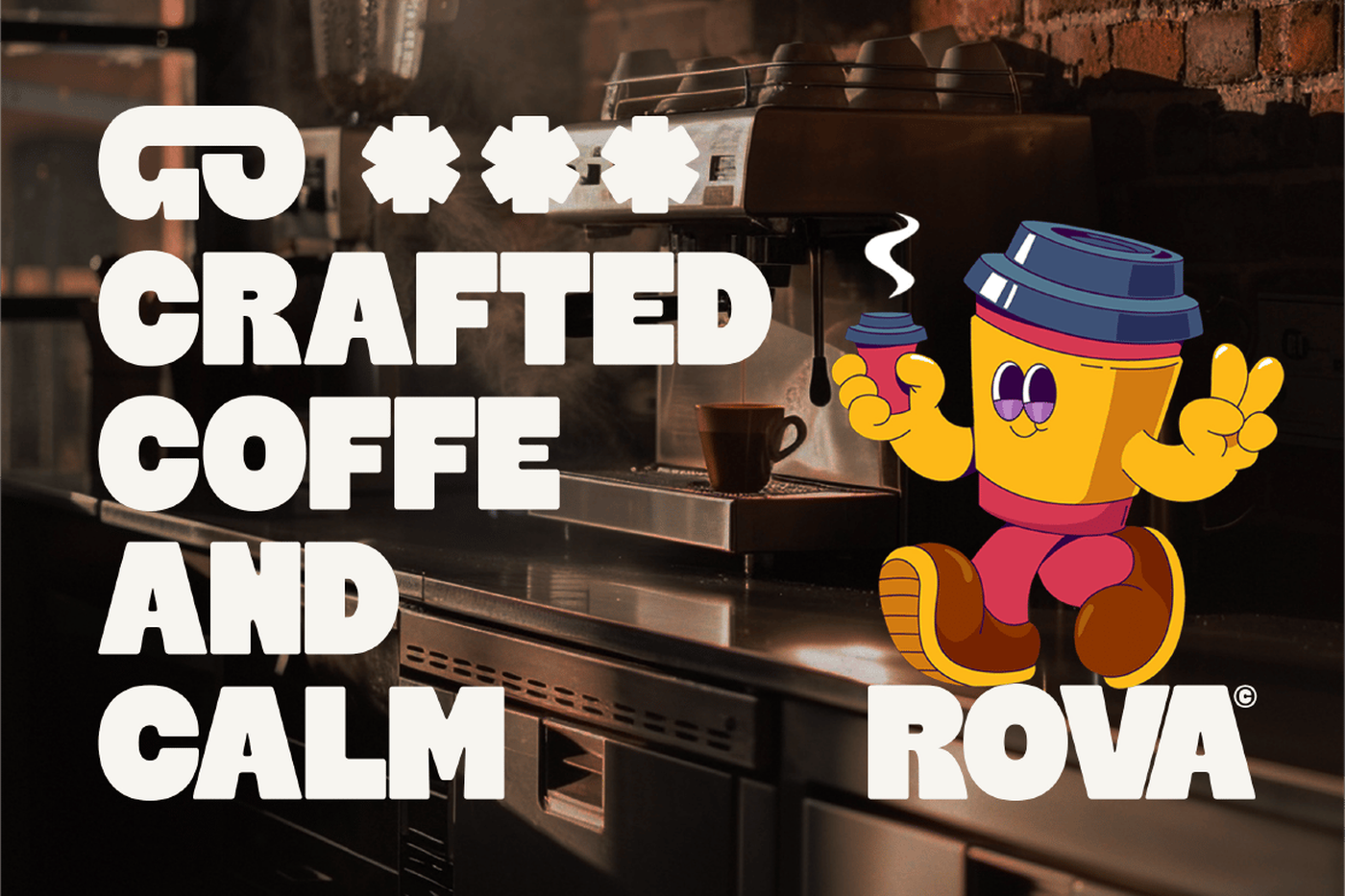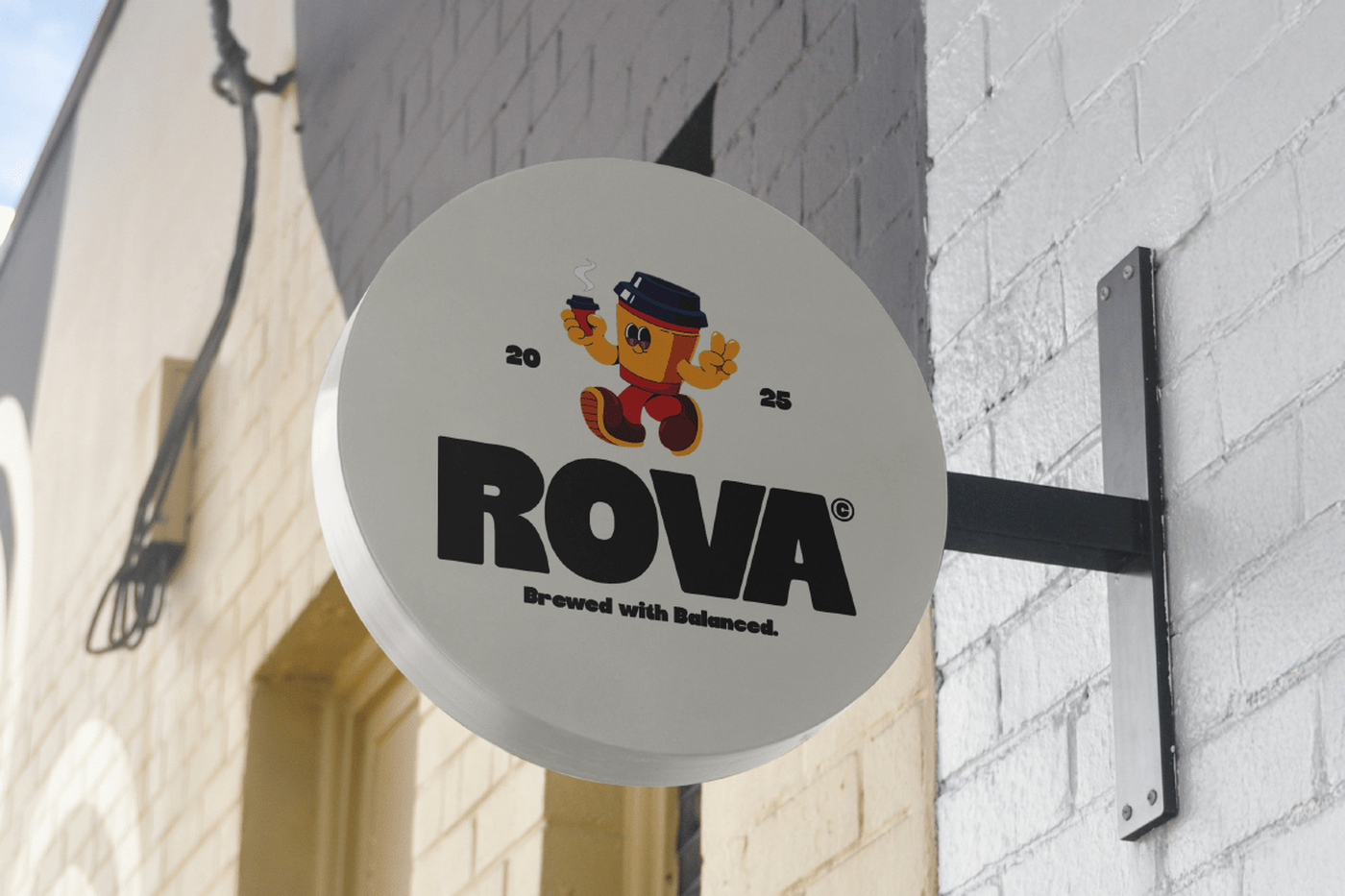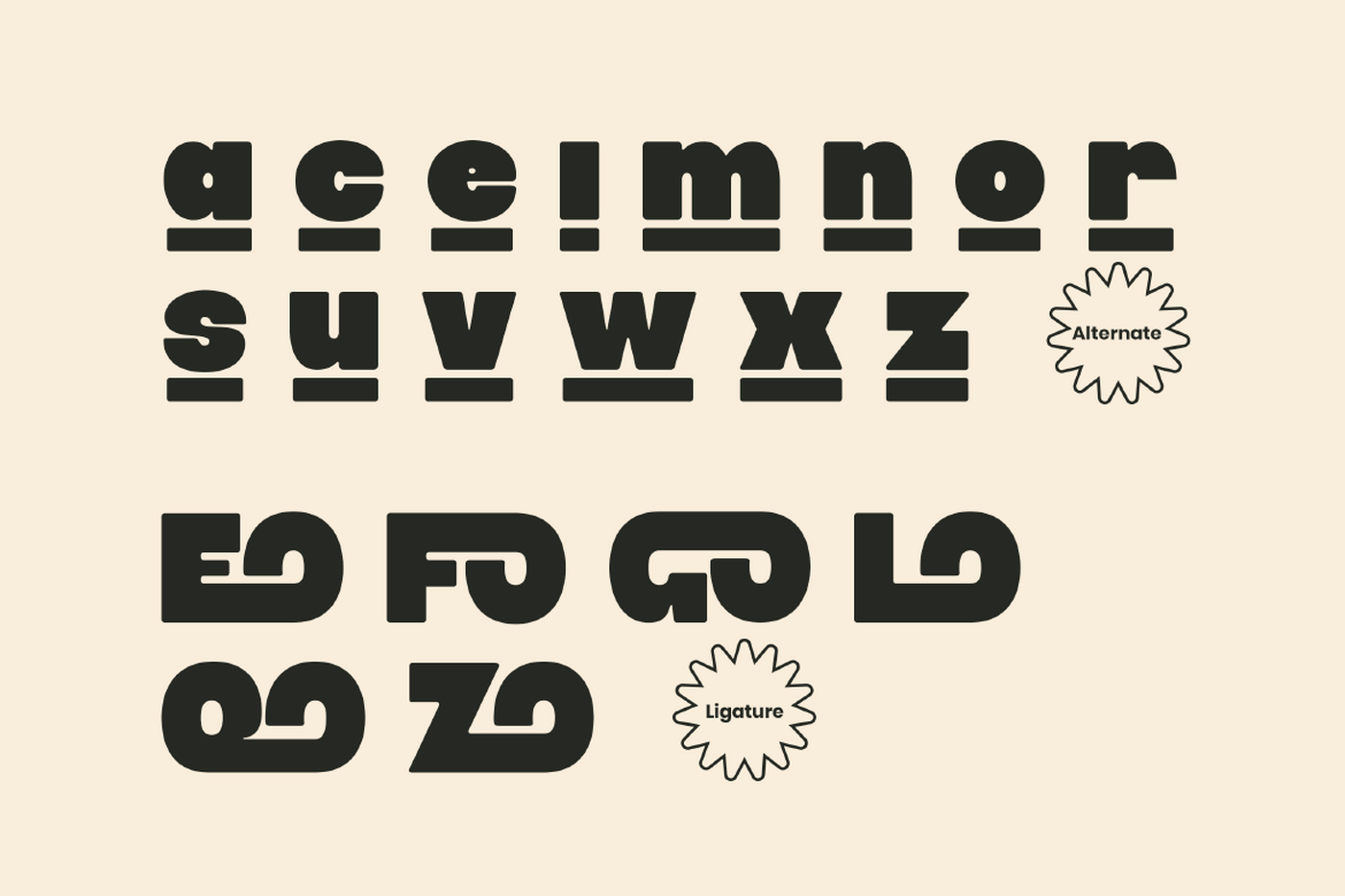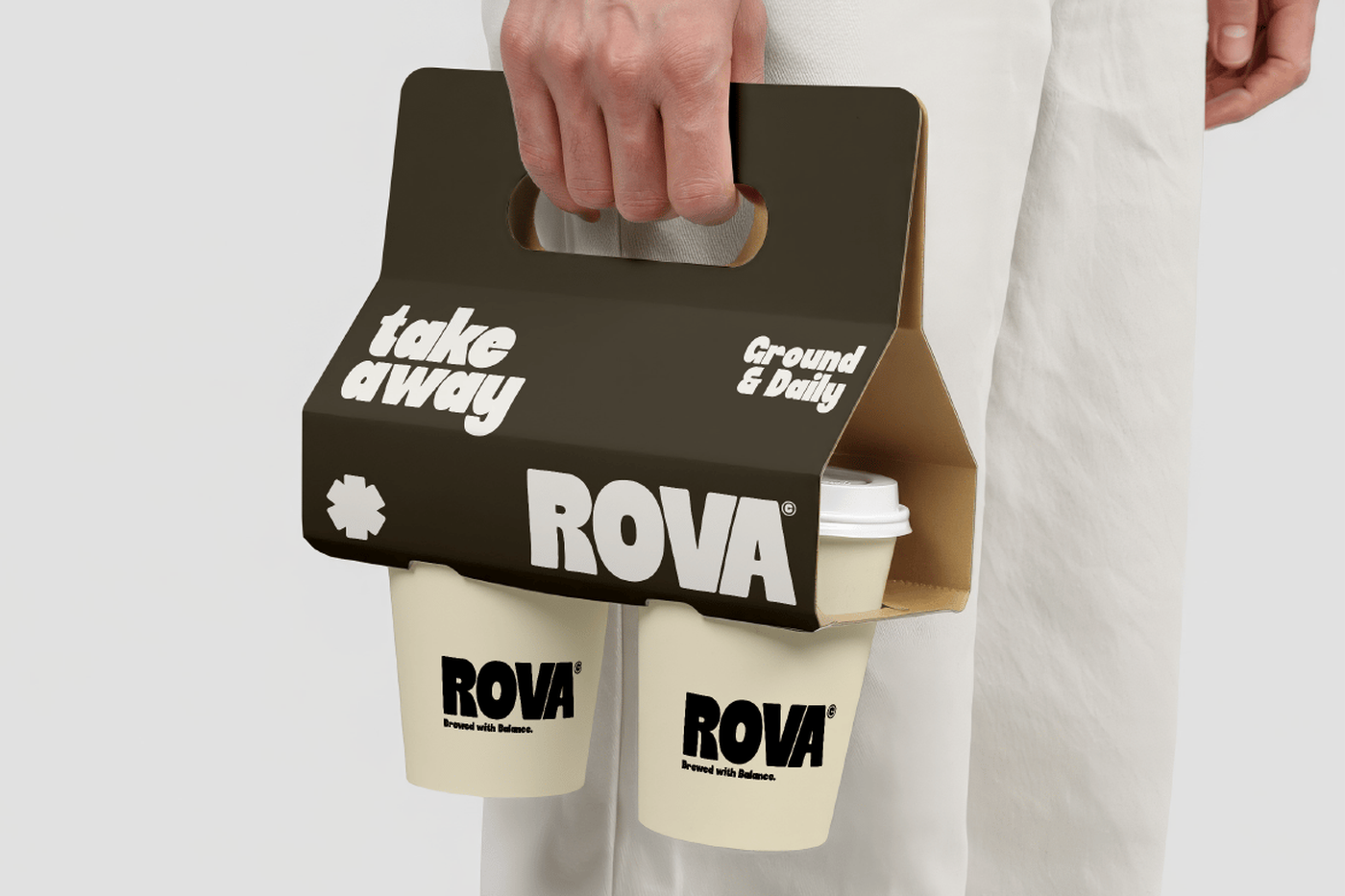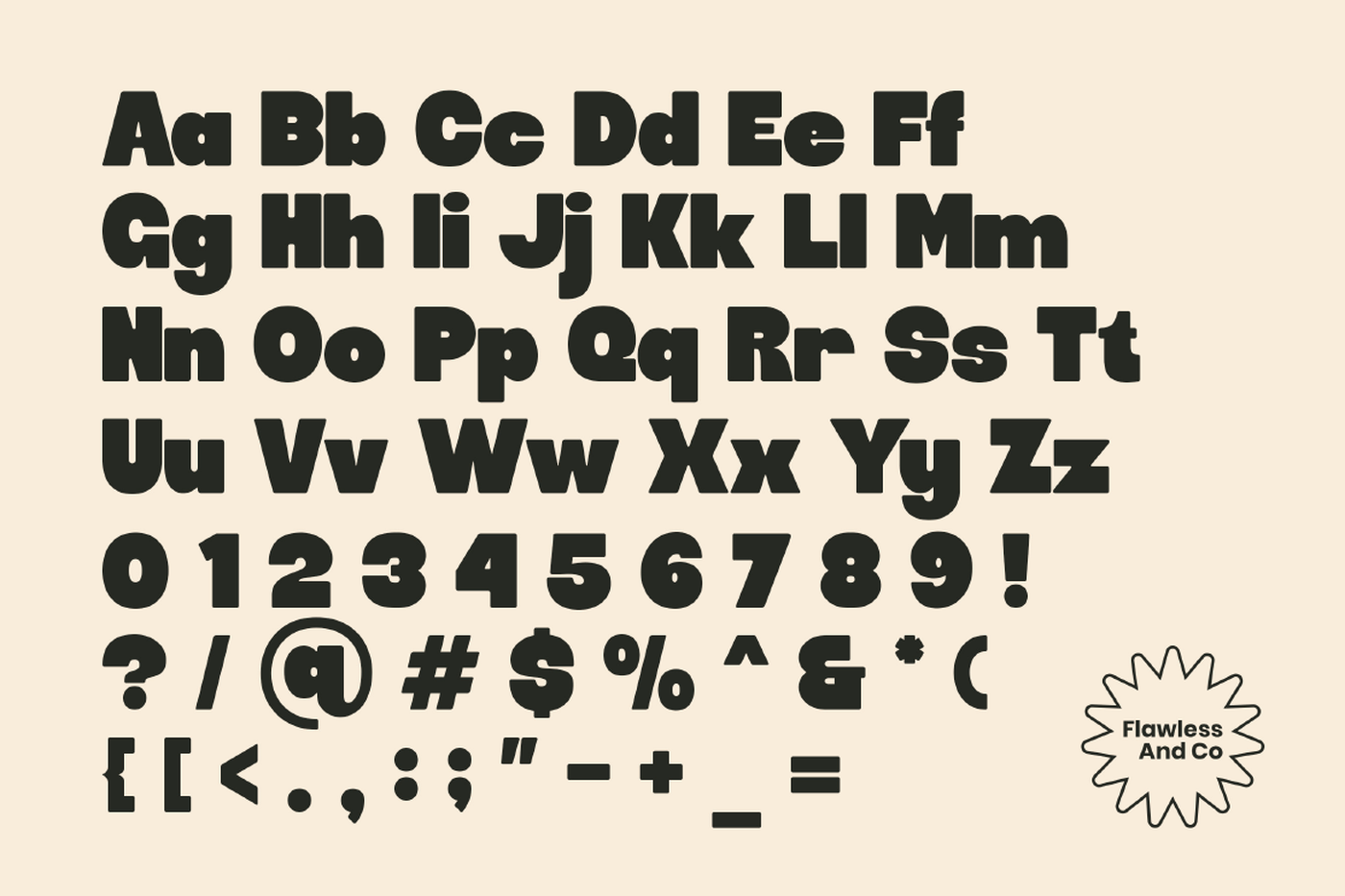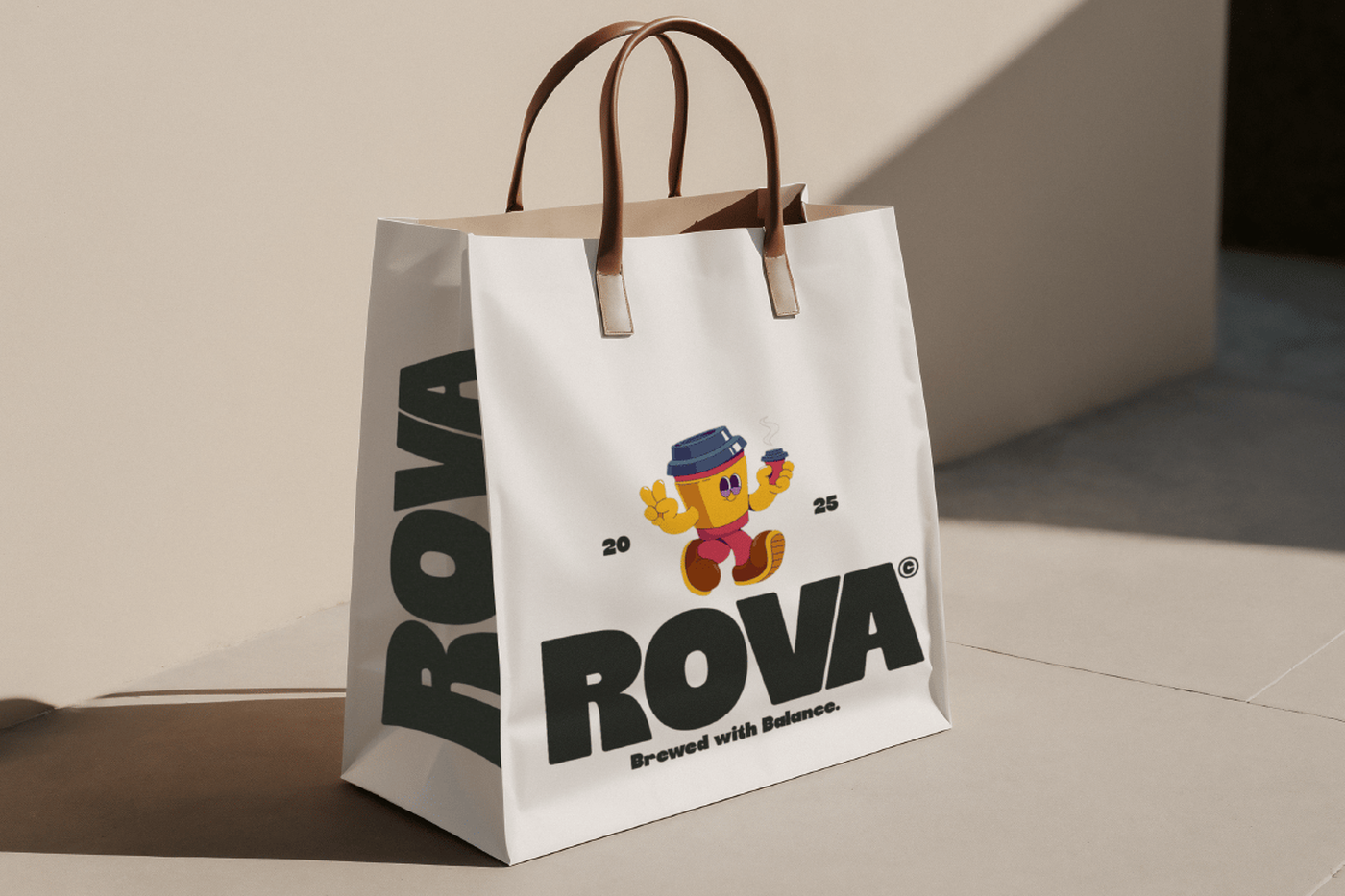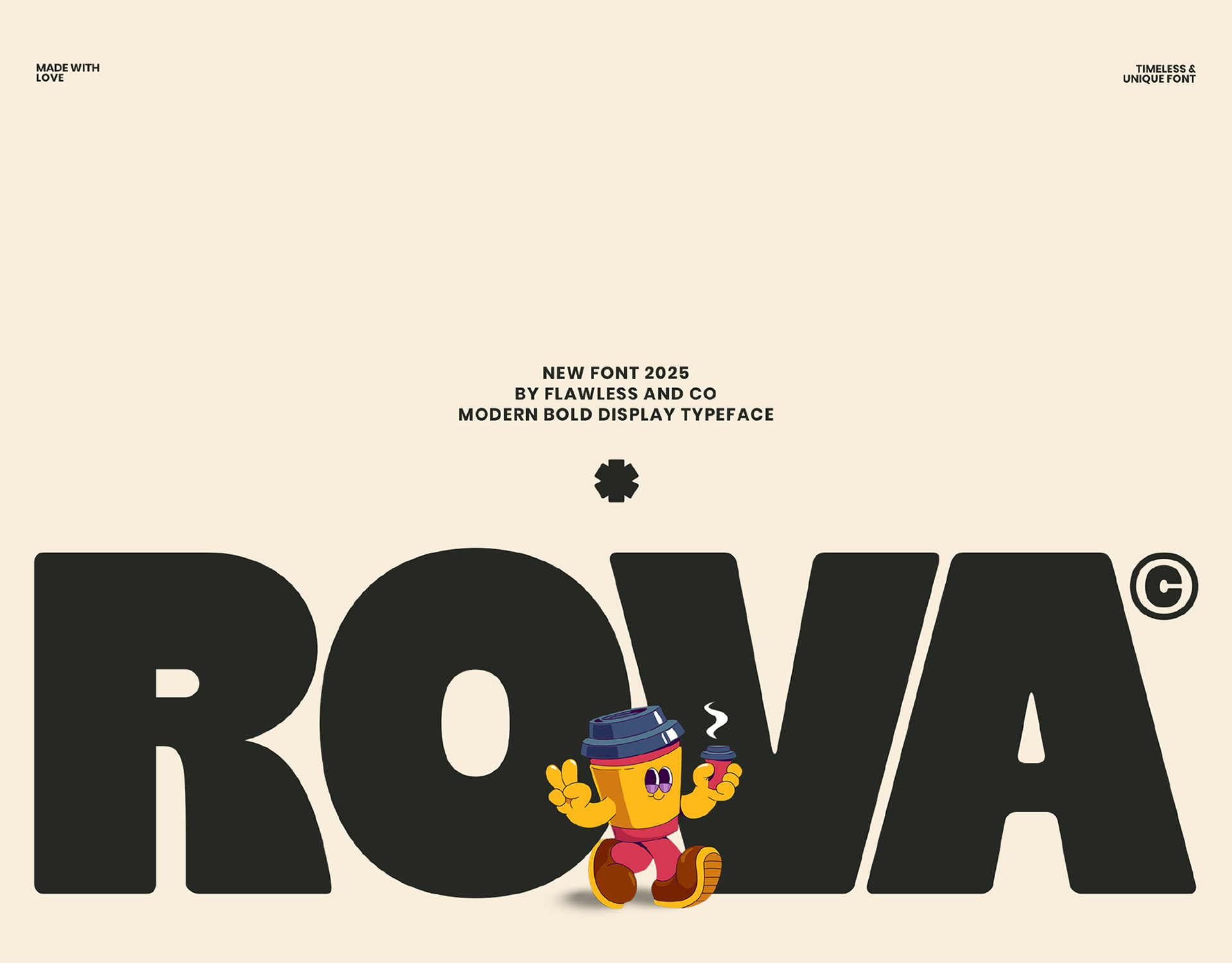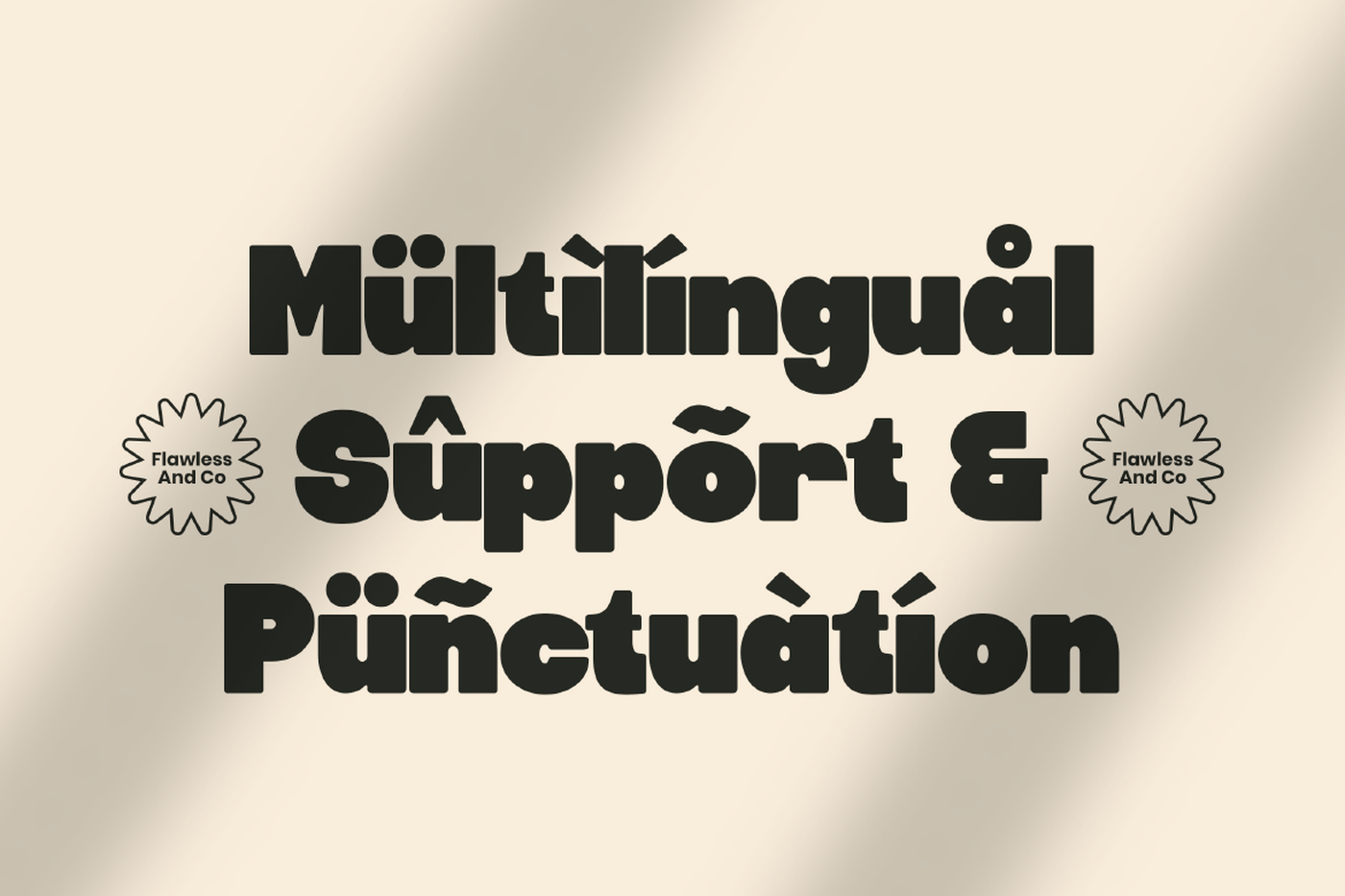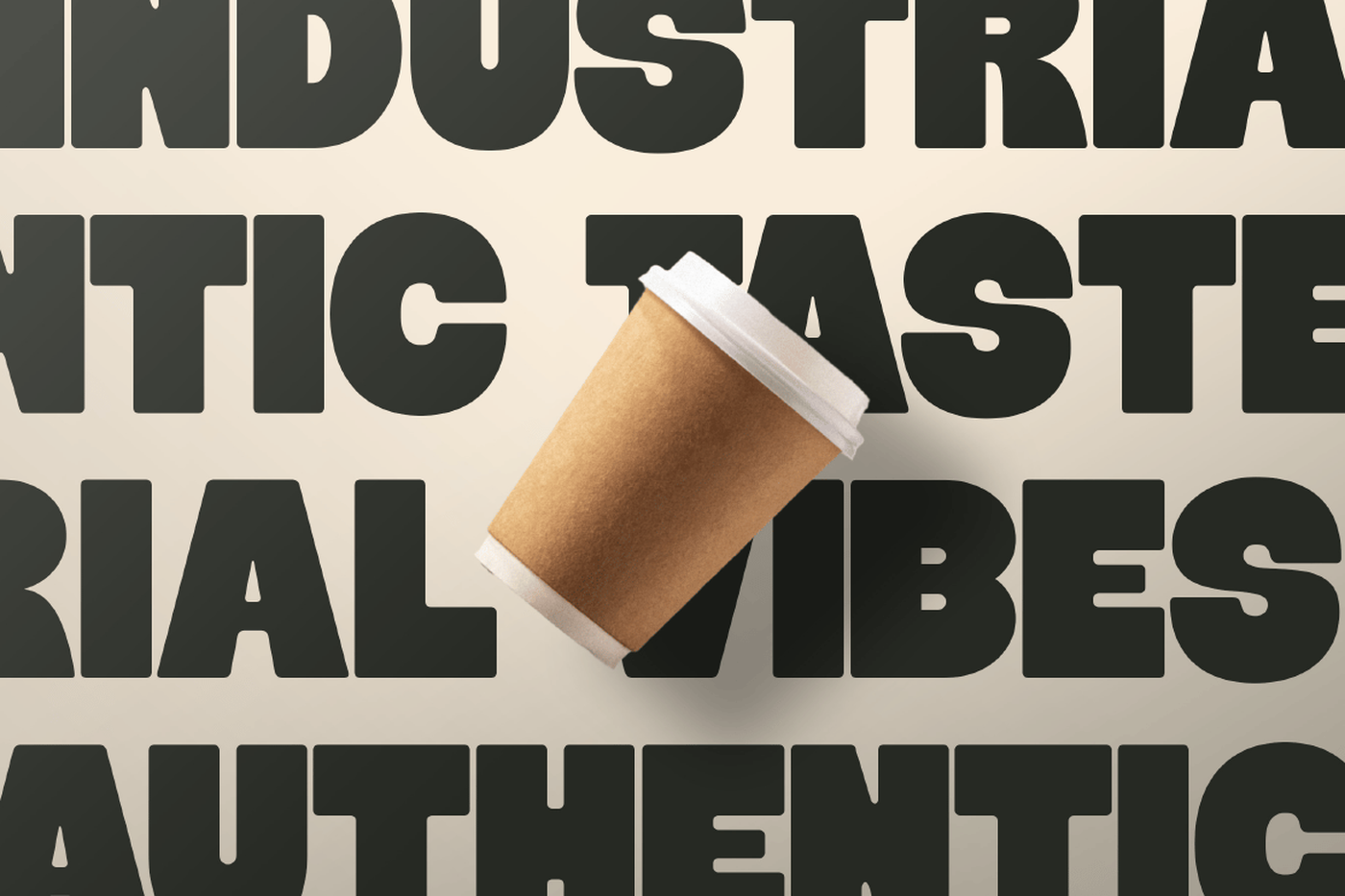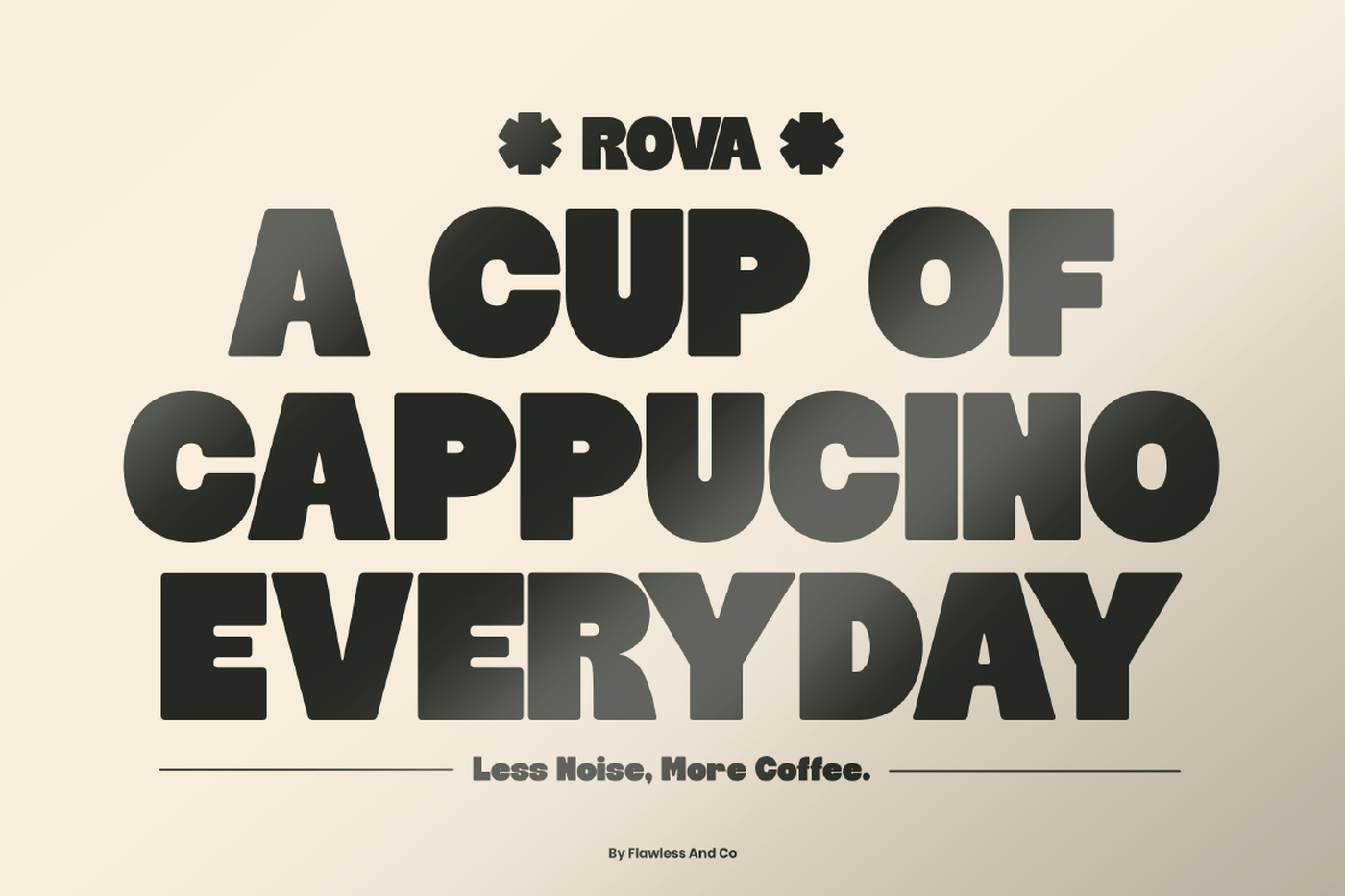
ROVA - Modern Bold Display Font
Rova, a modern bold display font that radiates strength, confidence, and simplicity. Designed with clean geometric shapes and powerful curves, Rova delivers a timeless aesthetic that stands out in any visual composition. Every letterform in Rova is crafted to command attention — making it the perfect choice for logos, headlines, and impactful branding projects. The strong and balanced proportions create a sense of modern elegance while maintaining a bold and friendly personality.
Font: ROVA